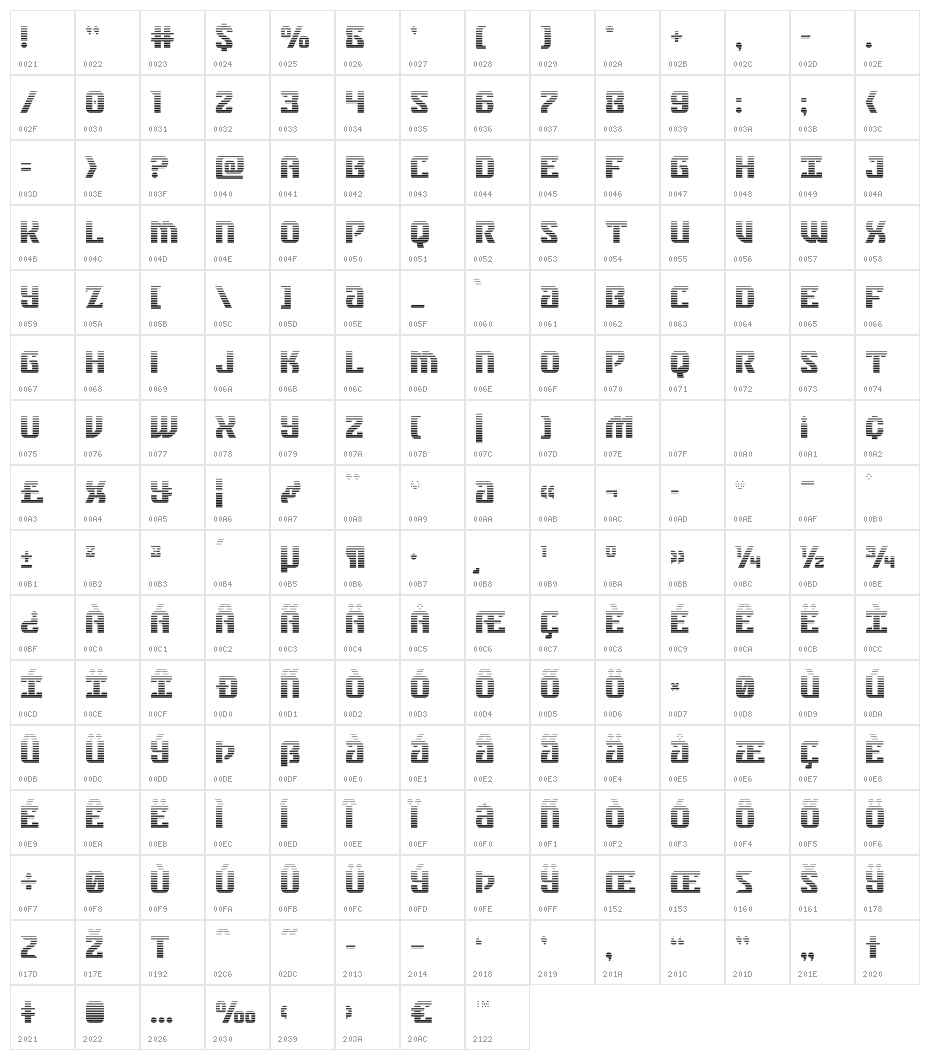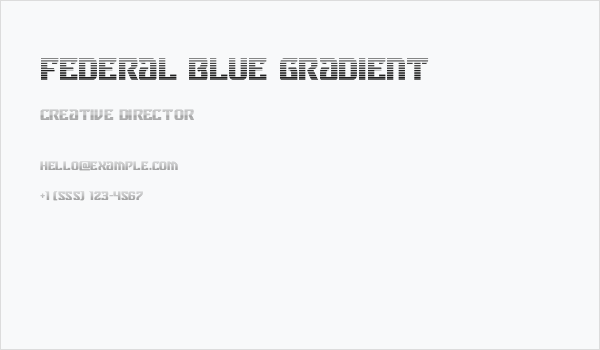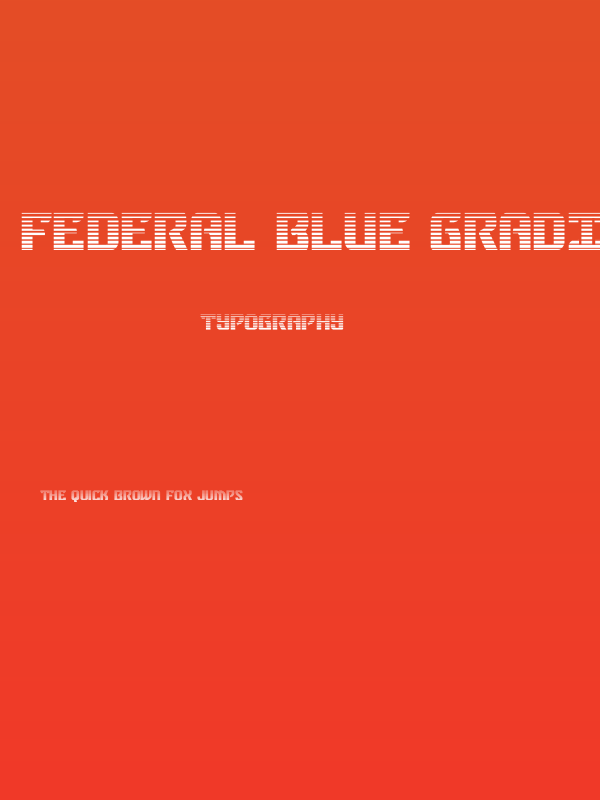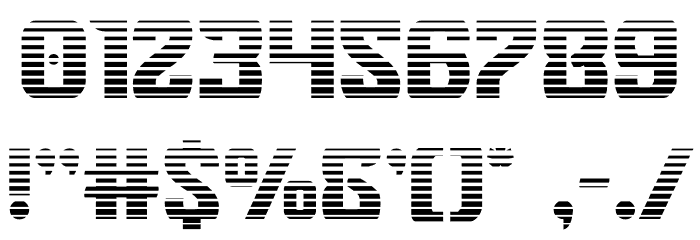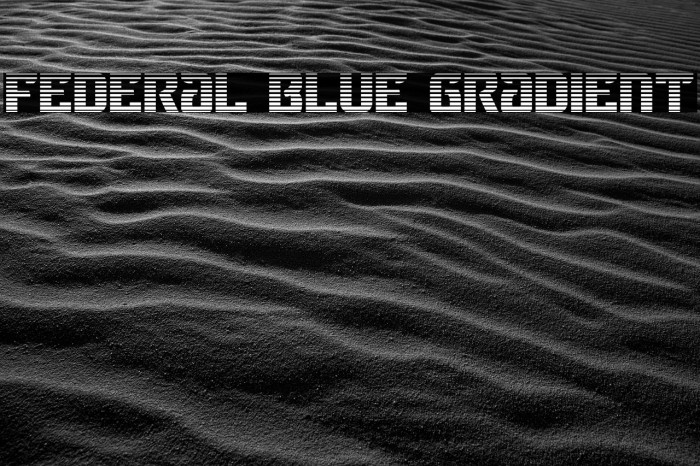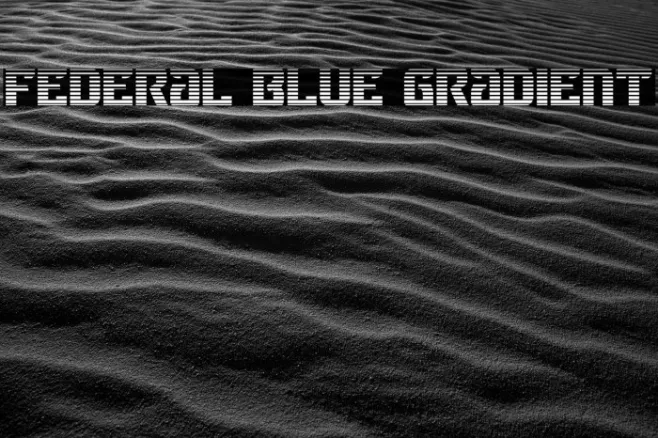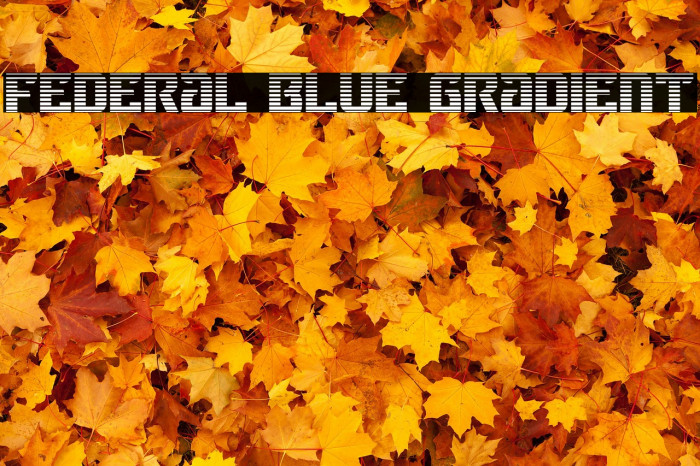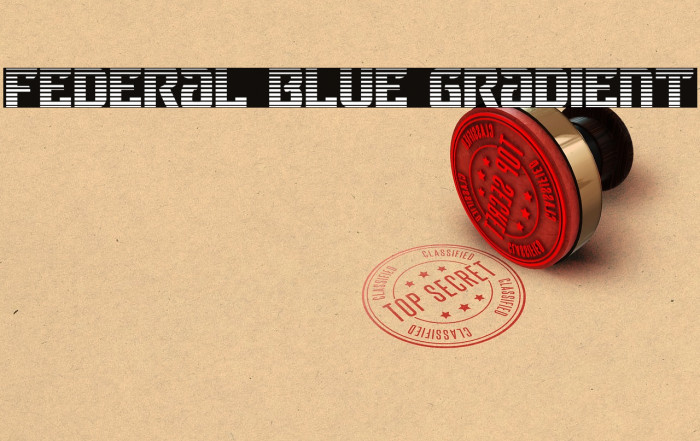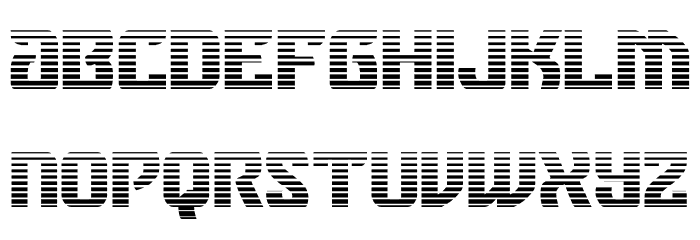
Federal Blue Gradient Font
Federal Blue Gradient Description
This font features a bold, futuristic design with a distinctive striped pattern running horizontally across each character. The uppercase and lowercase letters, as well as numbers and special characters, maintain a consistent width, giving the font a monospaced appearance. The geometric shapes and sharp angles contribute to its modern and tech-inspired aesthetic. The horizontal lines create a sense of movement and energy, making it suitable for dynamic and eye-catching designs. The font's unique style is ideal for projects that require a strong visual impact.
| Overall Style | Futuristic, Tech-inspired |
| Proposed Projects | Ideal for technology branding, sci-fi themed posters, video game titles, and modern digital interfaces. |